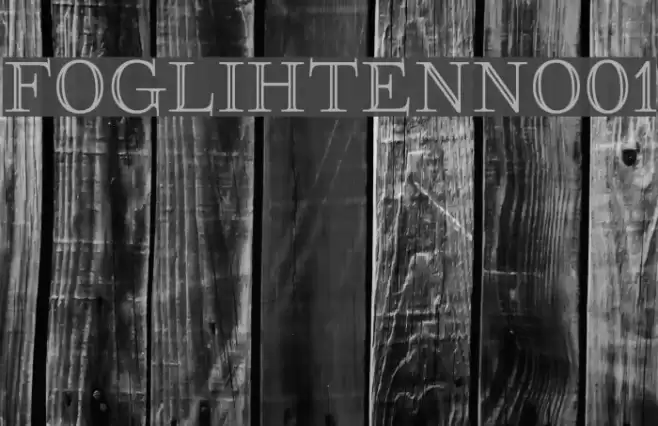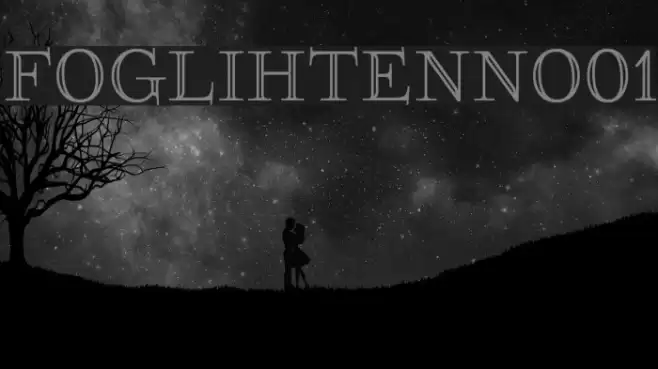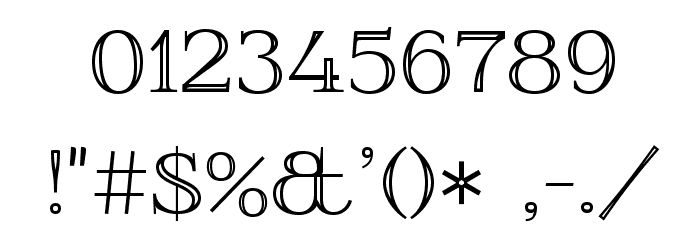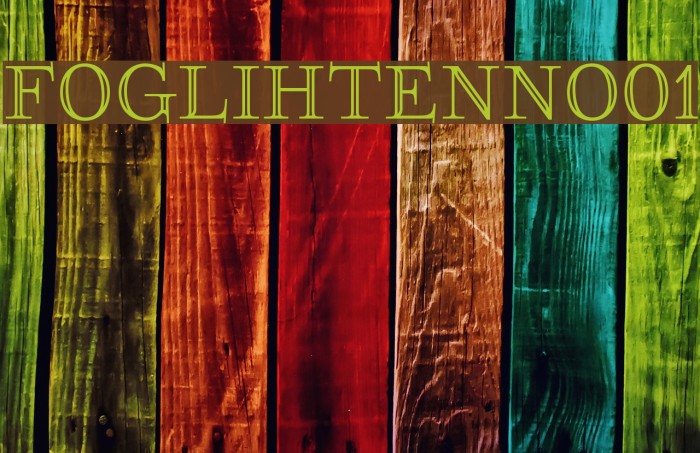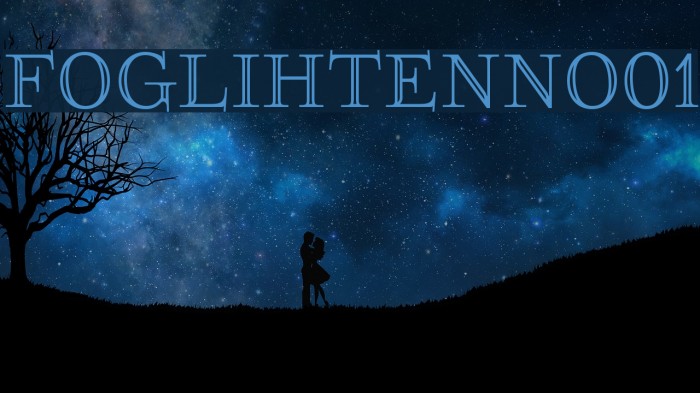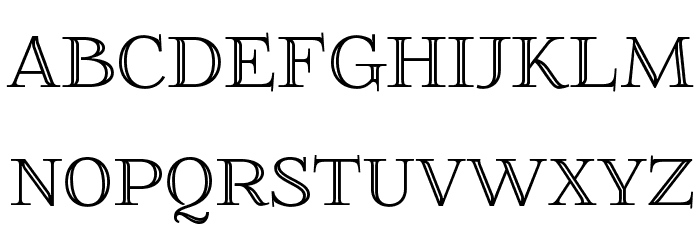
FoglihtenNo01
This font features a classic serif style with elegant, sweeping curves and sharp serifs that give it a sophisticated and timeless appearance. The uppercase letters are bold and commanding, while the lowercase letters maintain a consistent style that complements the overall design. The numerals are clear and distinct, making them easily readable. Special characters are included, each designed with the same attention to detail as the letters and numbers. The font's structure is well-balanced, with a medium contrast in stroke thickness that adds to its readability and aesthetic appeal.
A classic serif font with elegant curves and sharp serifs, offering a sophisticated and timeless look.
- Proposed Projects: Ideal for use in editorial design, book covers, formal invitations, and branding projects that require a touch of elegance.
- Category: Serif
- Overall Style: Classic